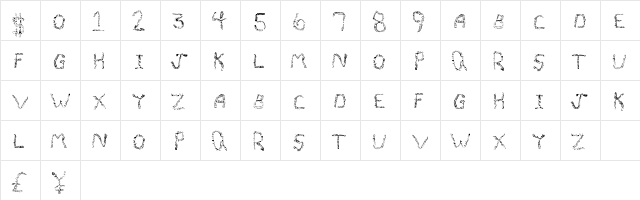
QuiveringNoodle Regular
Design Context for QuiveringNoodle Typeface
QuiveringNoodle is a composed and adaptable typeface that performs quietly and consistently across a wide range of design contexts.